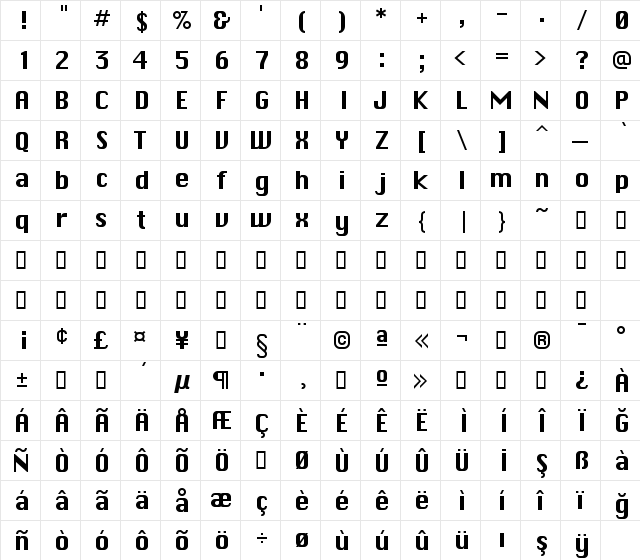
TR Clapton Regular
Design Context for TR Clapton Typeface
TR Clapton is a composed and adaptable typeface that performs quietly and consistently across a wide range of design contexts.